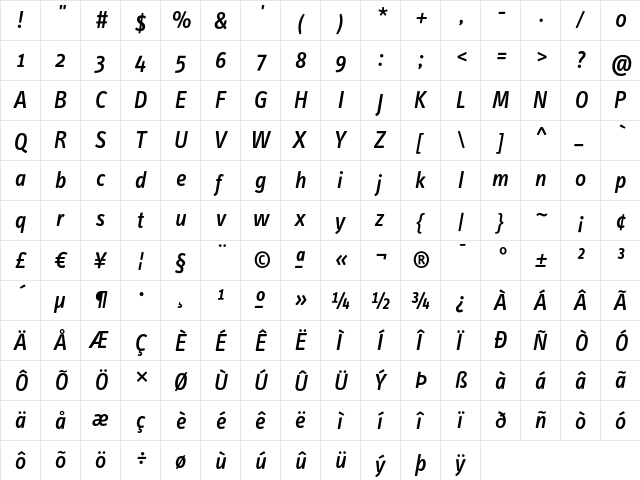
InfoTextMedium Italic
Design Context for InfoTextMedium Typeface
InfoTextMedium is a composed and adaptable typeface that performs quietly and consistently across a wide range of design contexts. The dynamic lean of this cut emphasises speed and emphasis in any layout.
Pro Tip: Try InfoTextMedium for annotation and caption copy alongside an upright companion — the contrast in angle creates a dynamic but ordered typographic system.